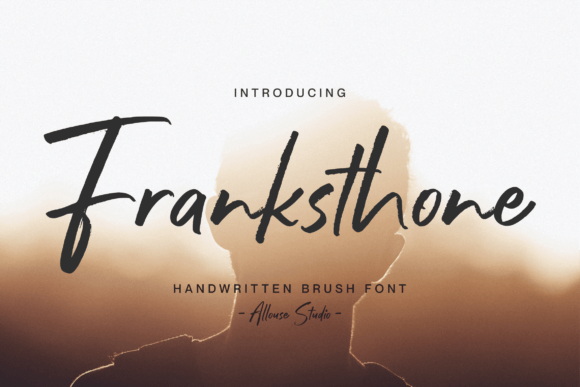
Journey into the Realm of Elegance with Franksthone Font
Unleash the lyrical beauty of your words with Franksthone Font, the epitome of grace and charm. This meticulously crafted handwritten brush script, designed by the renowned allouse.studio, grants you the power to transform ordinary text into an enchanting spectacle. Whether you're a poet, a designer, or simply a wordsmith seeking visual enchantment, Franksthone Font will elevate your creations to new heights.
With its flowing curves, delicate strokes, and captivating ligatures, Franksthone Font embodies the essence of artistry. Allow your words to dance across the page, leaving a trail of elegance that draws readers into your imaginative world. Let your poetry take flight, your invitations exude sophistication, and your branding materials emanate an aura of timeless allure.
Franksthone Font is more than just a font; it's an invitation to immerse yourself in an aesthetic wonderland. Each character is a finely tuned masterpiece, carefully designed to evoke emotion and create a visual symphony. Whether you're crafting heartfelt quotes, designing eye-catching posters, or creating mesmerizing packaging, Franksthone Font ensures your message leaves an unforgettable impression.
In a world saturated with digital fonts, Franksthone Font stands out as a testament to the power of human artistry. Its hand-drawn nature brings warmth and authenticity to your projects, instantly captivating the hearts of your audience. Join the ranks of creative visionaries who have discovered the magic of Franksthone Font and let your words ignite the imagination of the world.
Immerse yourself in the world of Franksthone Font and experience the transformative power of beautiful typography. Download now and unlock the gateway to enchantment. Let your creativity soar, let your words shine, and let Franksthone Font be your trusted companion on this artistic journey.